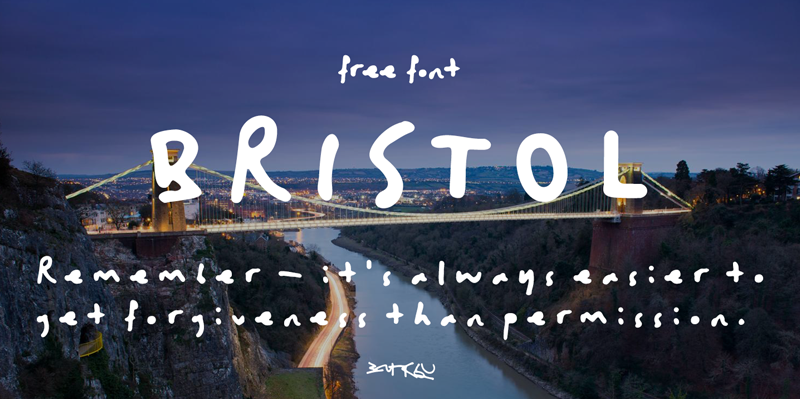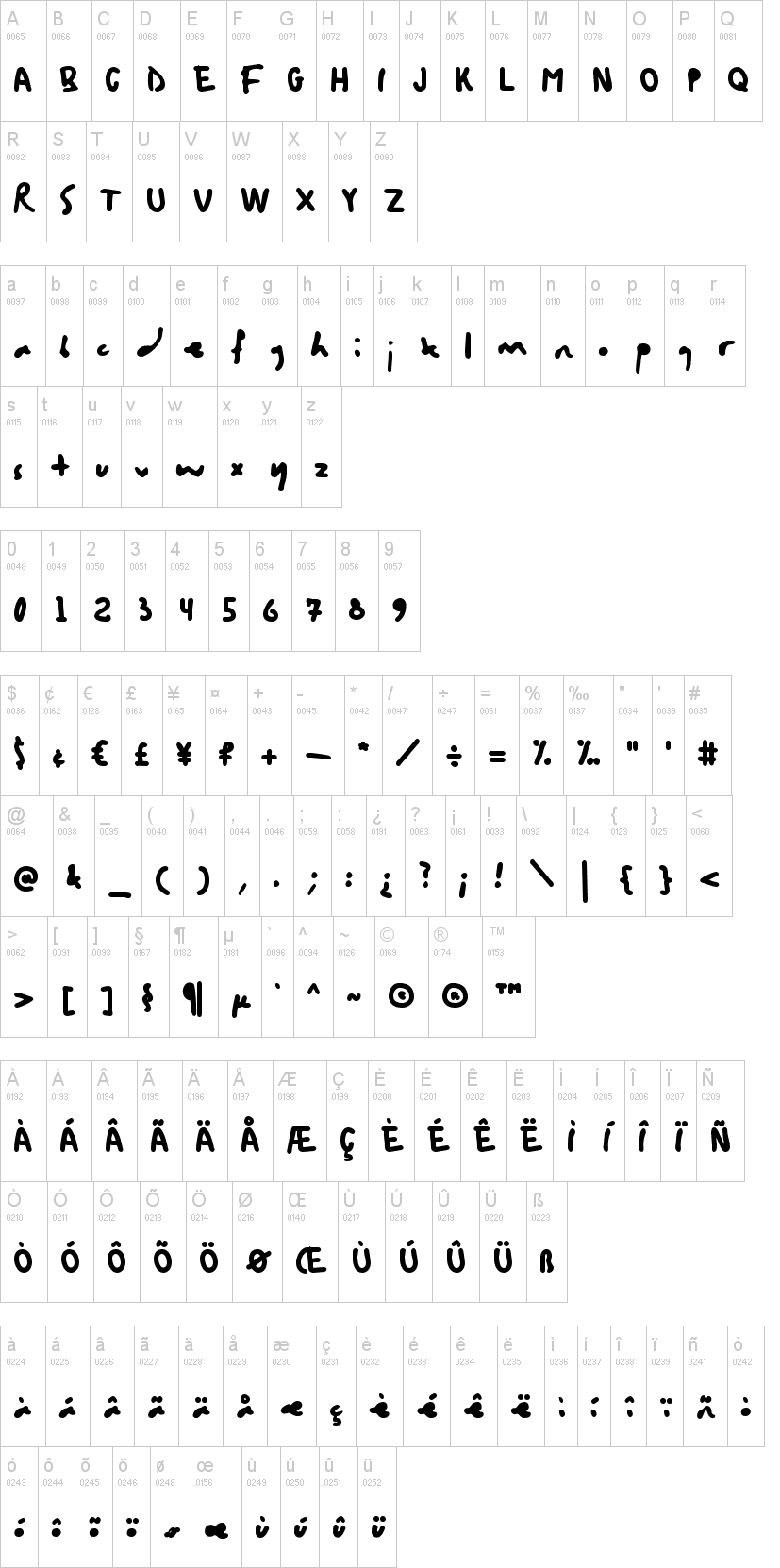
Note of the authorThe "Bristol" font based on Banksy felt pen handwriting in letter to Bridge Farm School (2016, Bristol). In this font integrated Opentype features: case sensitive forms and ligatures for BANKSY signature. Created by Jovanny Lemonad.